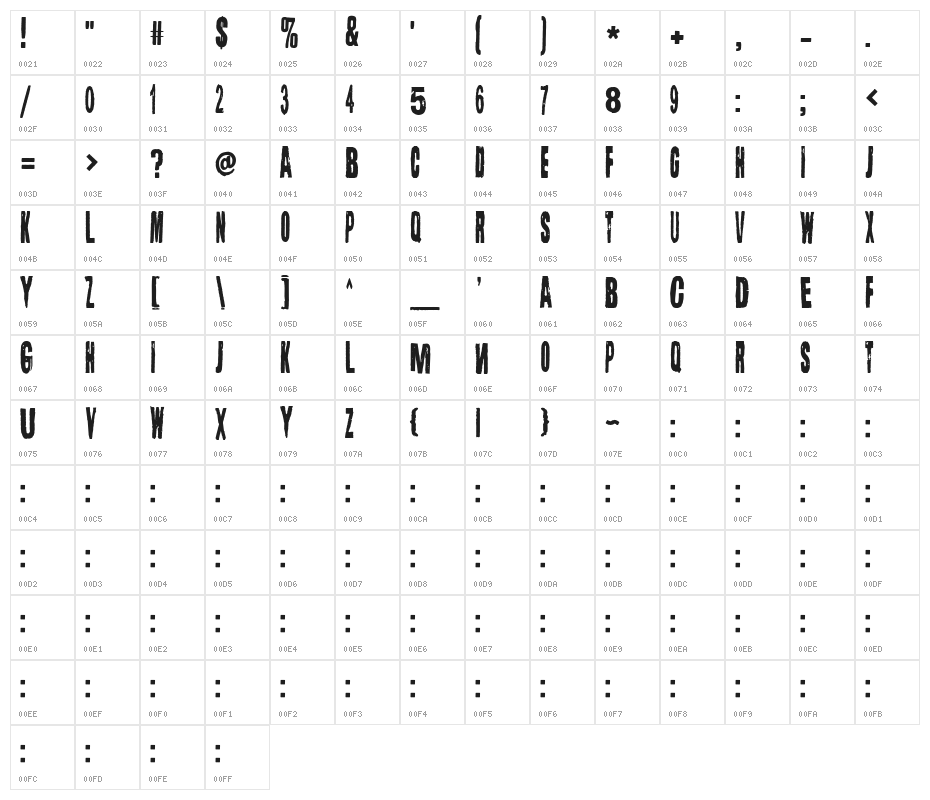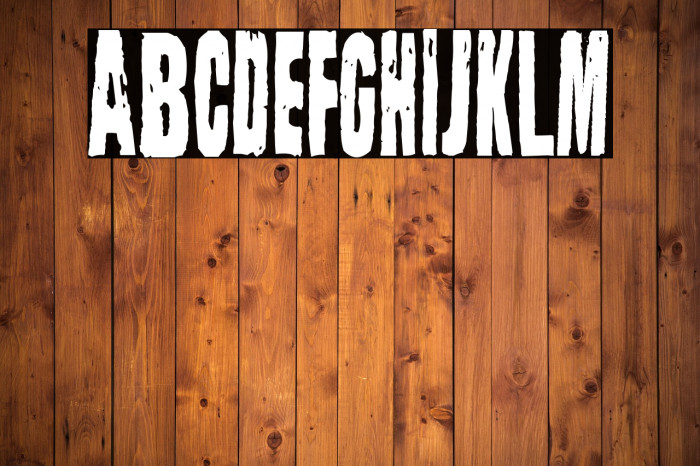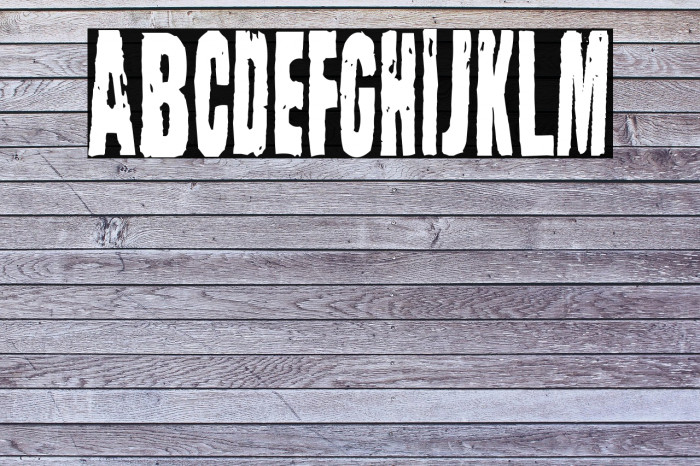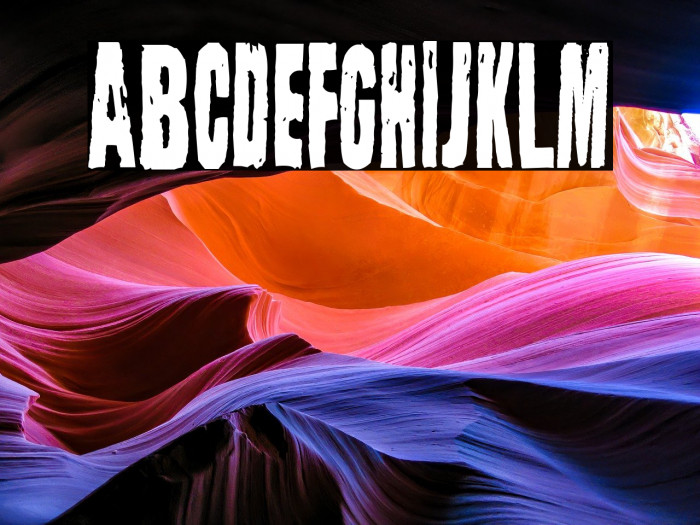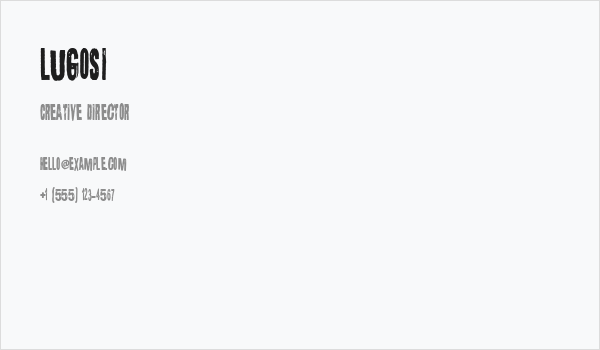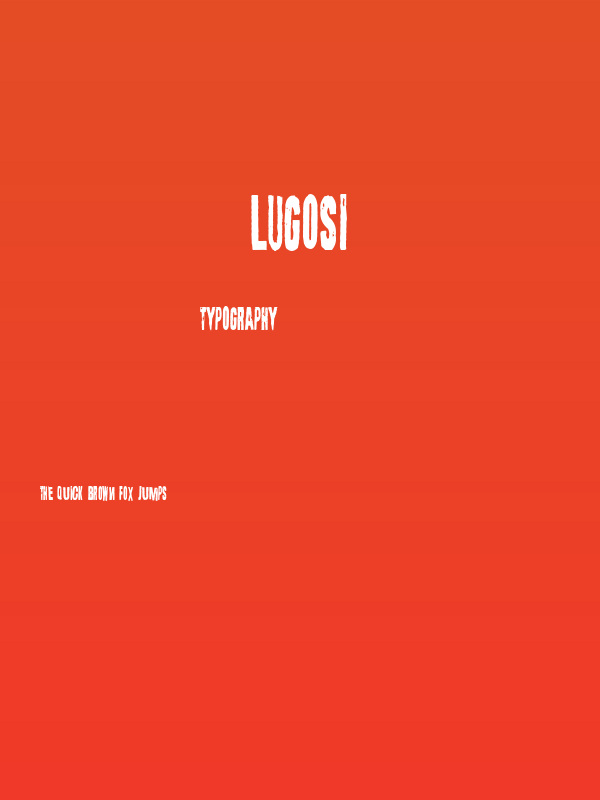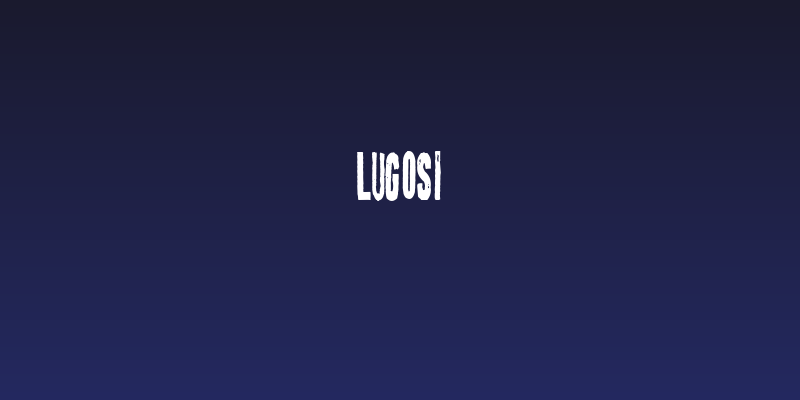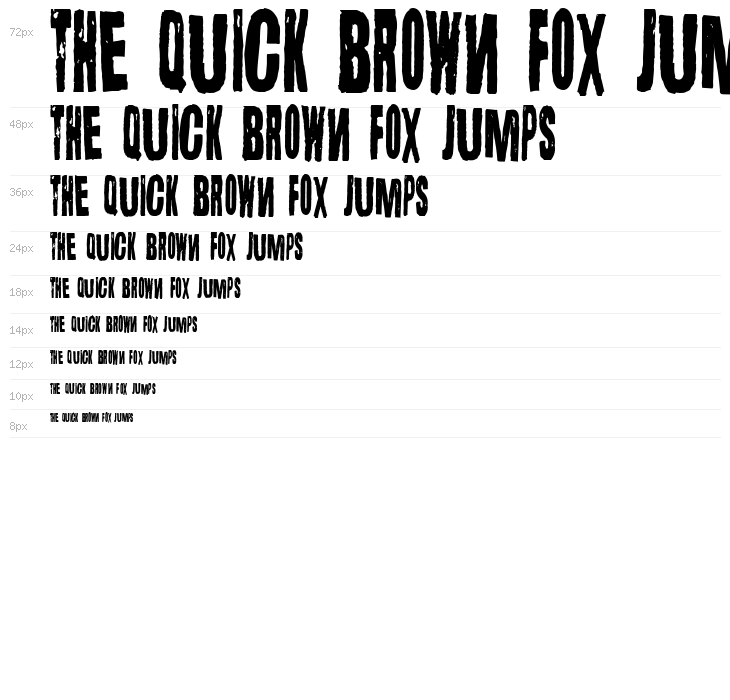
Lugosi Font
Lugosi Description
This font features a bold, distressed style with a rugged and textured appearance. The characters are unevenly shaped, giving them a hand-crafted, vintage feel. The uppercase letters are tall and imposing, while the lowercase letters maintain a consistent style. Numbers and special characters follow the same distressed aesthetic, adding to the overall cohesive look. The font's unique texture makes it stand out, ideal for projects that require a bold statement or a touch of grunge.
| Overall Style | Vintage, Grunge |
| Proposed Projects | Perfect for poster designs, album covers, branding for edgy products, or any project needing a bold, vintage touch. |